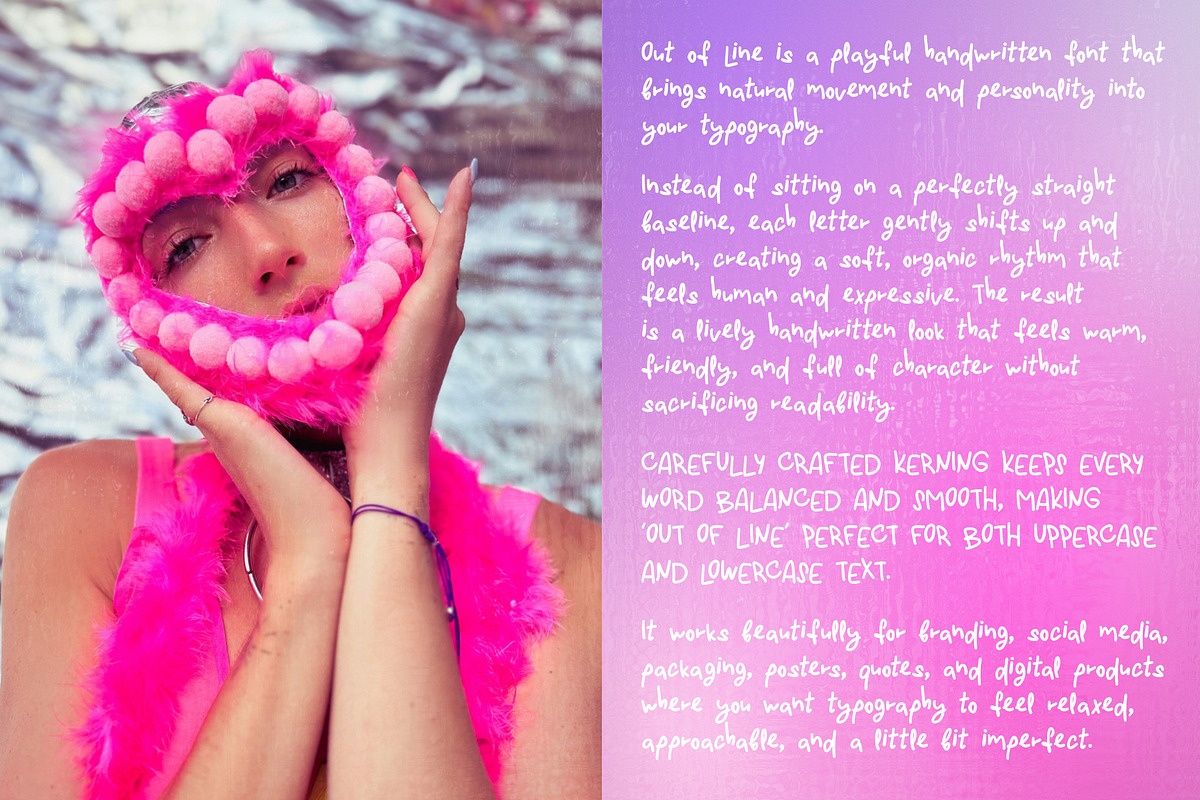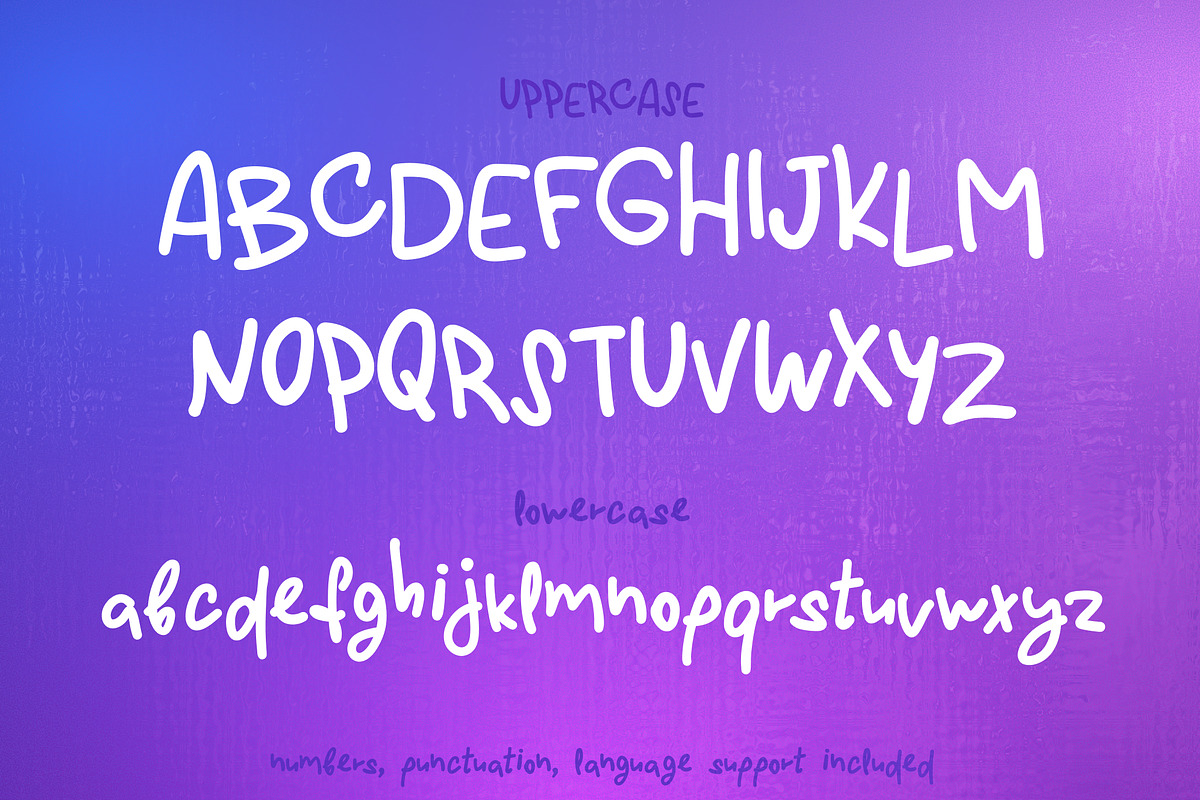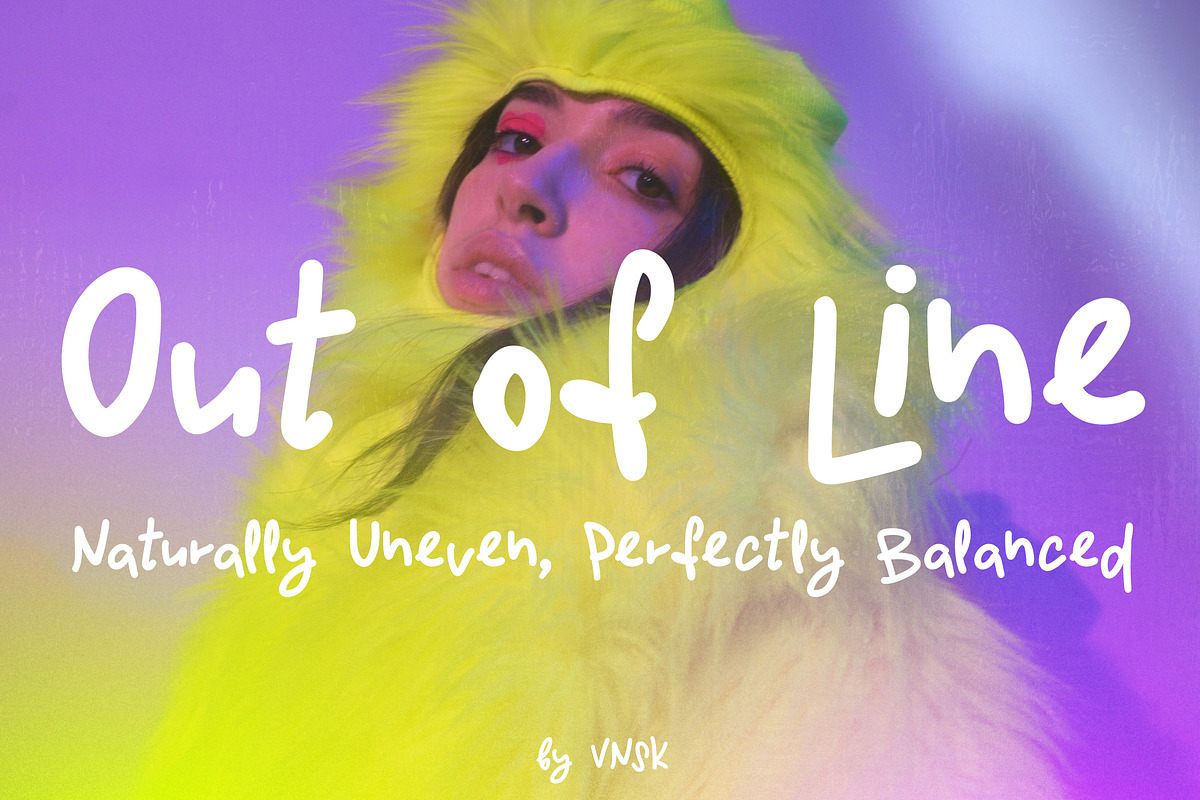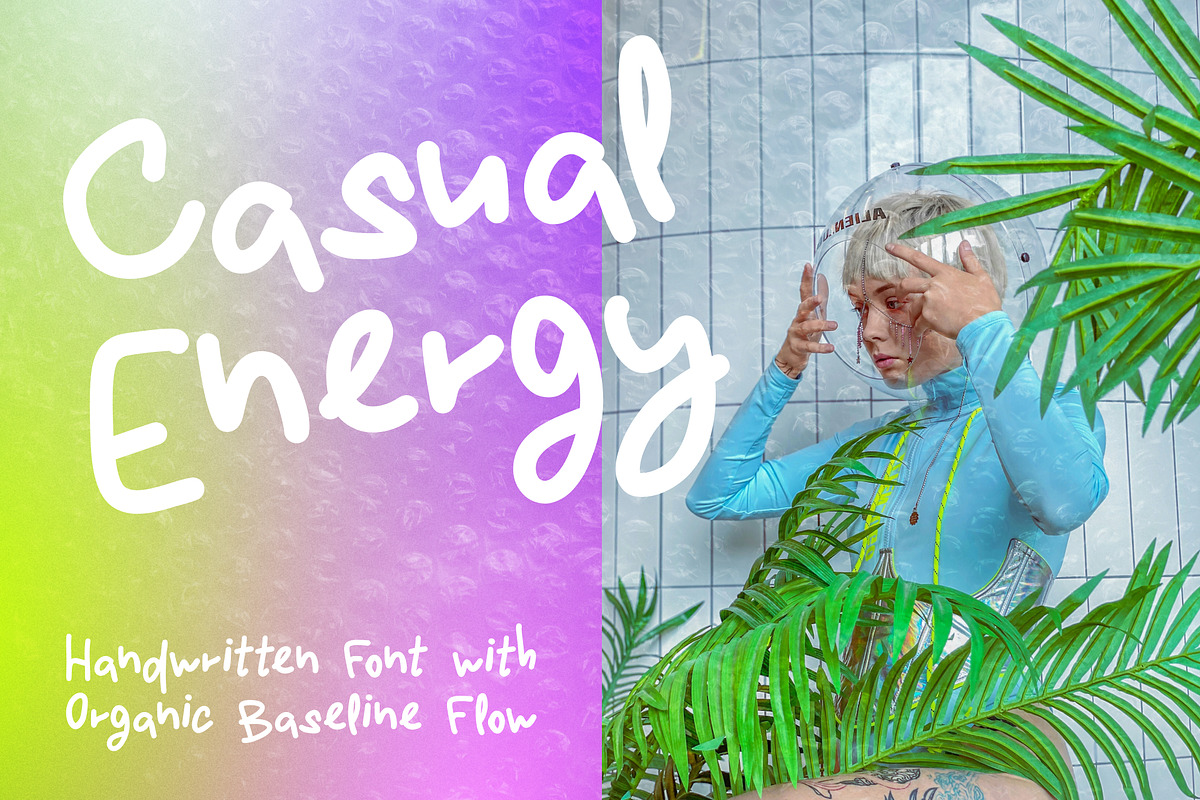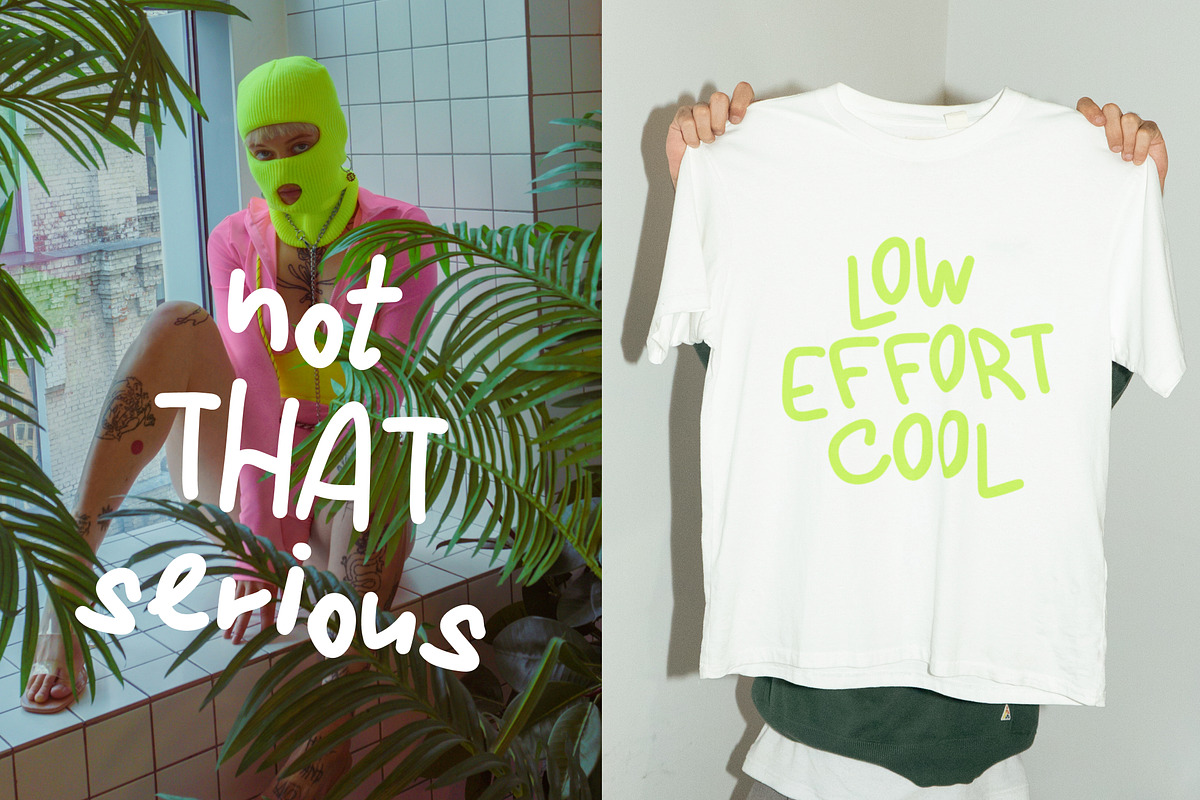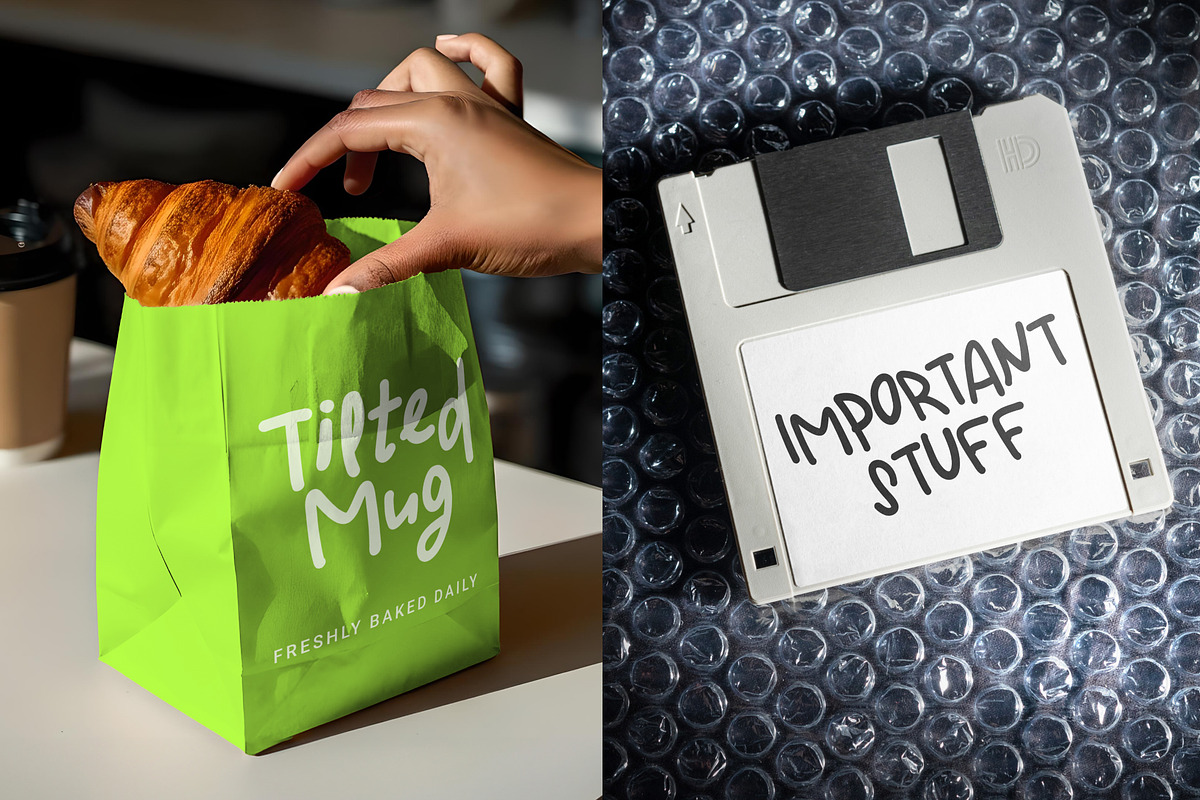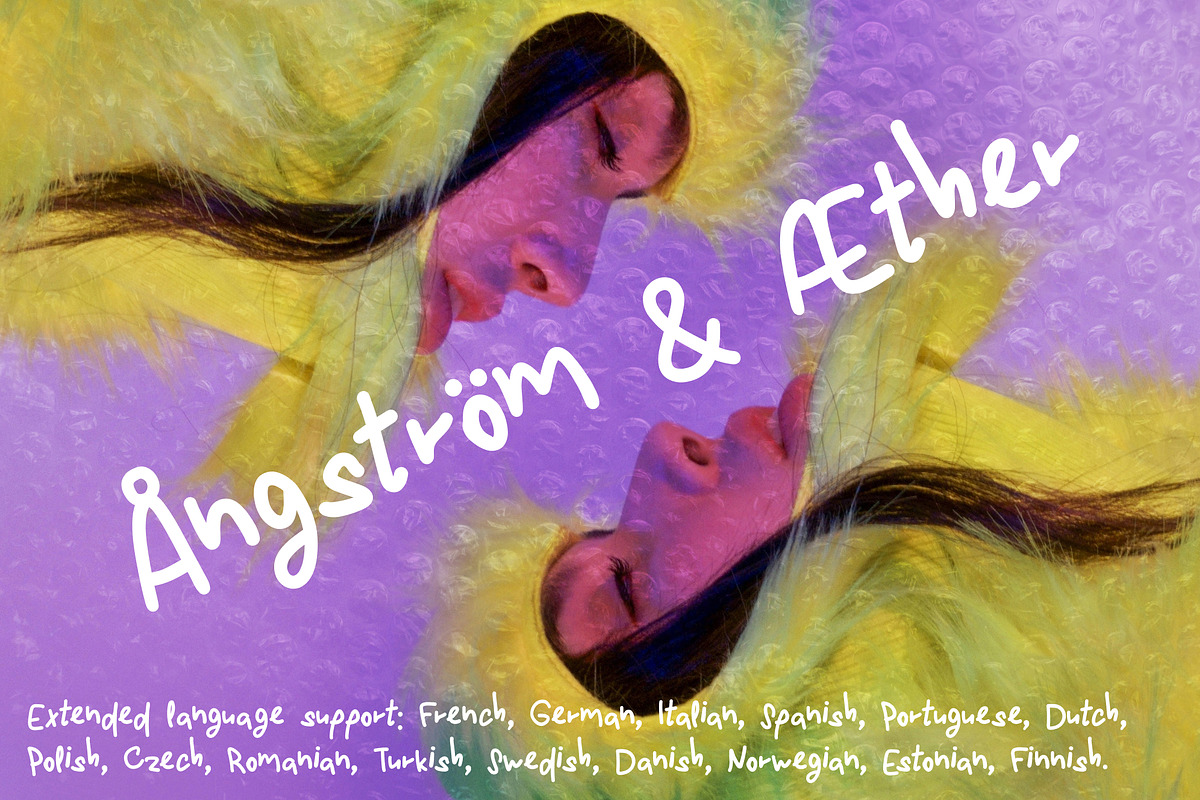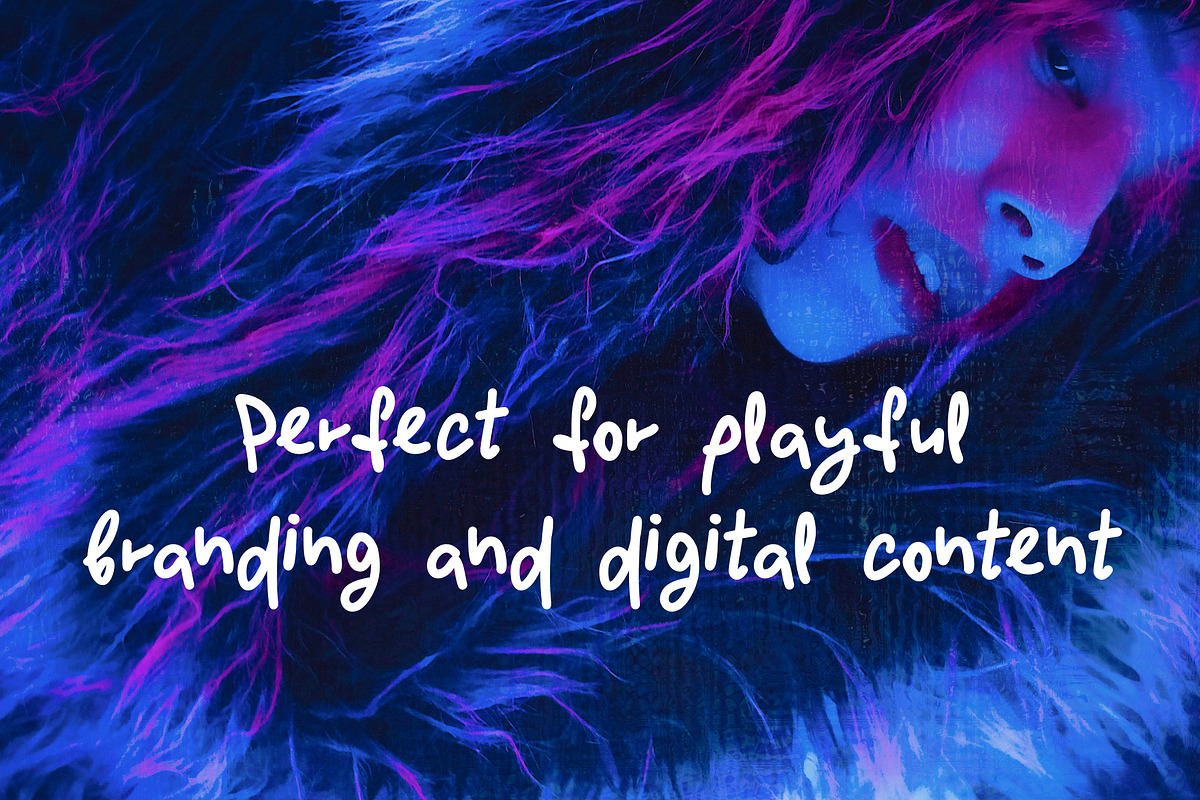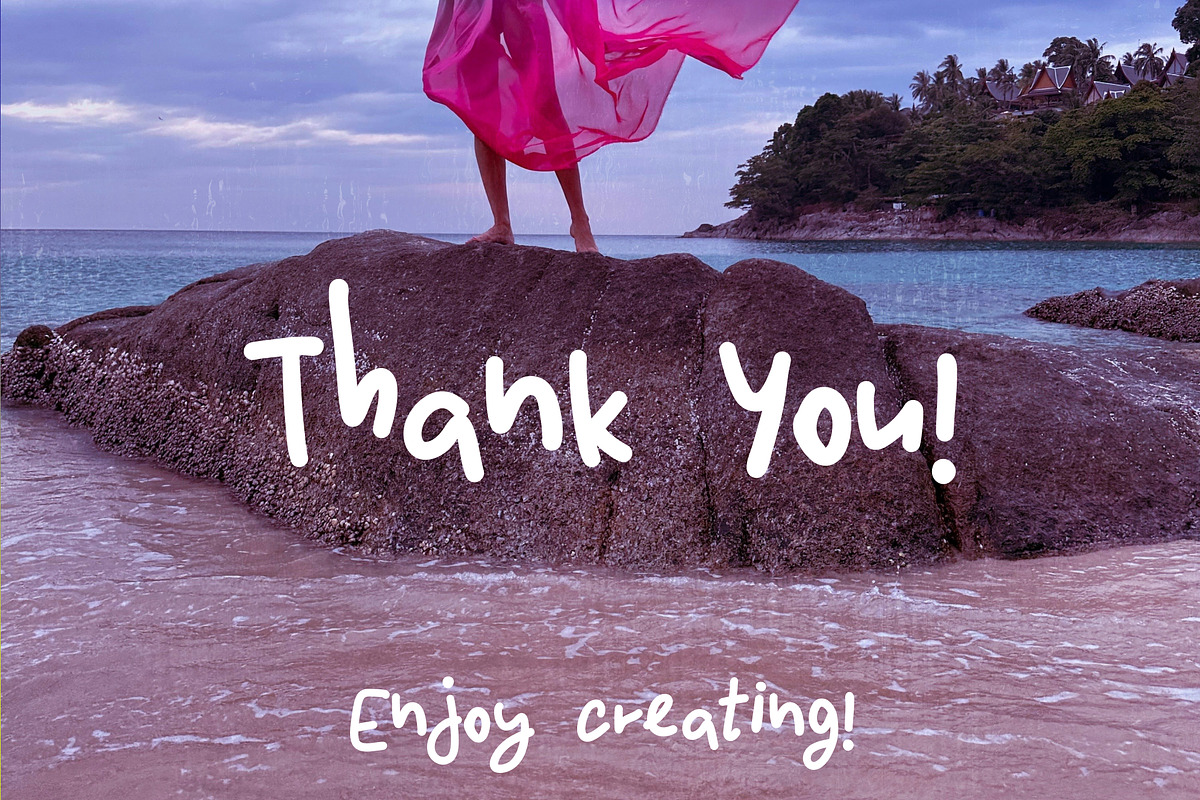
Out Of Line: Casual Handwritten Font
Introducing Out Of Line - casual handwritten font with organic baseline flow
Out of Line is designed to feel warm, human, and playful. Its unique character comes from a subtle vertical offset: letters gently rise and fall along the baseline, creating a dynamic, organic flow.
Carefully crafted kerning ensures that every word feels balanced and smooth in uppercase, lowercase, and title case. The result is a friendly handwritten look that feels expressive yet casual, perfect for modern creative projects.
Uppercase & lowercase letters
Branding • Social Media • Packaging • Posters • Stickers • Quotes • Invitations • Digital Products • Editorial Design